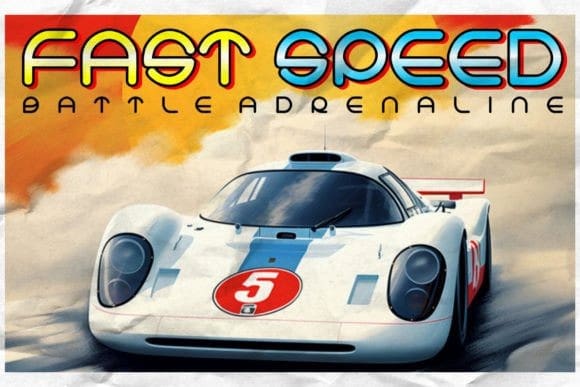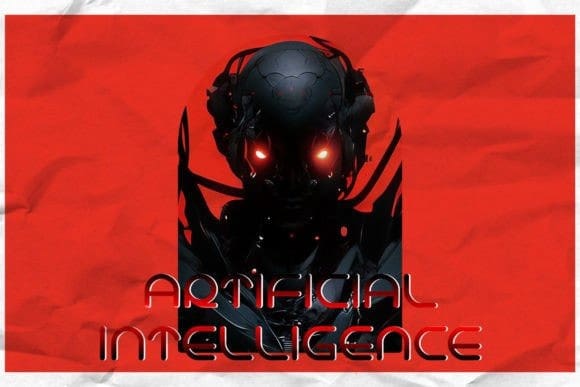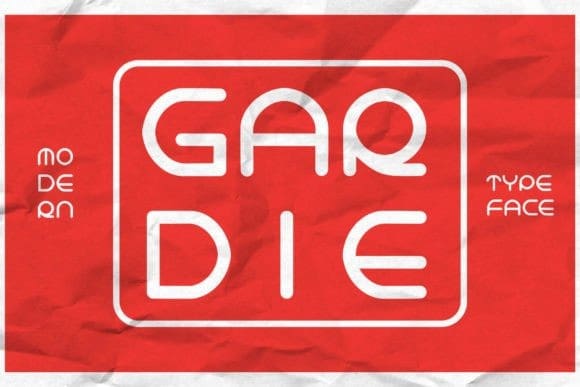
Gardie Font
Gardie Font is a quirky and fun display font. No matter the topic, this font will be an incredible asset to your fonts’ library, as it has the potential to elevate any creation.